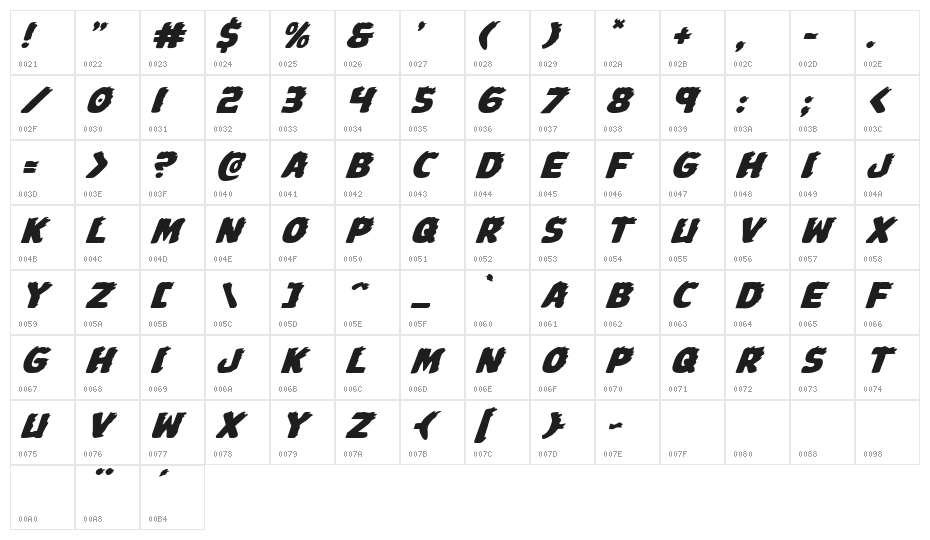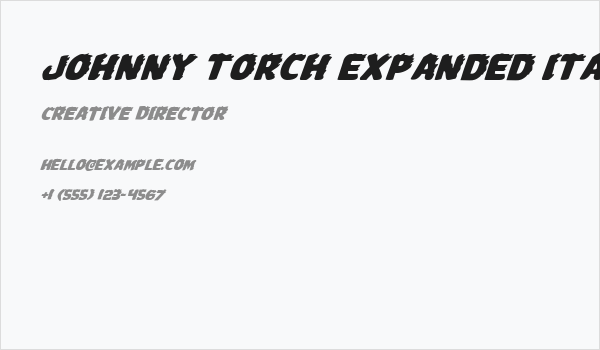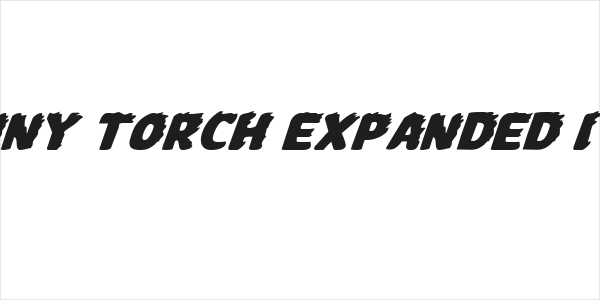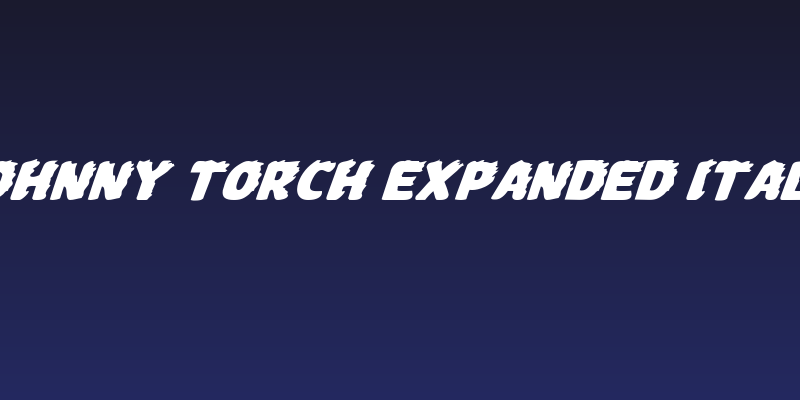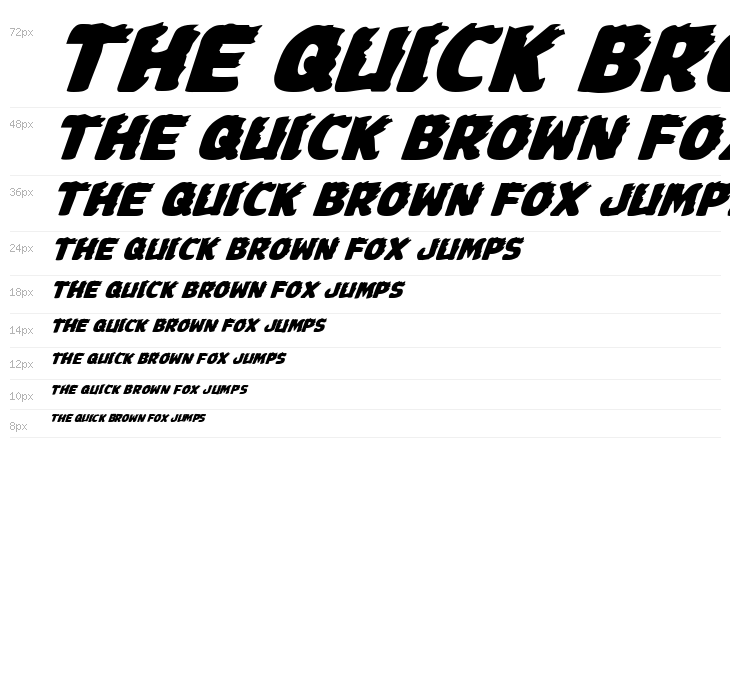
Johnny Torch Expanded Italic Font
This font exudes a bold and dynamic presence with its thick, brush-like strokes and italicized slant. The characters are expanded, giving them a wide and commanding appearance. The style is reminiscent of hand-painted signs, with a sense of movement and energy. Each letter is distinct and impactful, making it ideal for attention-grabbing designs. The numbers and special characters maintain the same bold and expressive style, ensuring consistency across all elements.
Proposed ProjectsIdeal for posters, headlines, branding, and any project requiring a strong, dynamic visual impact.